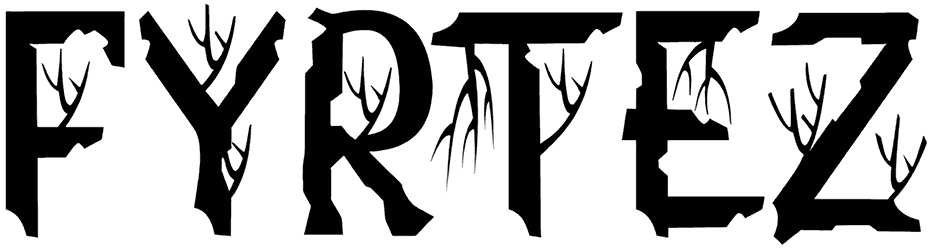
Zombie Food Font
Zombie Food can give life to your Halloween designs if you want to create an attractive look with simple effects. When previewed in large sizes, this zombie font has dramatic shapes, but its real power is in headlines, posters, and ads.